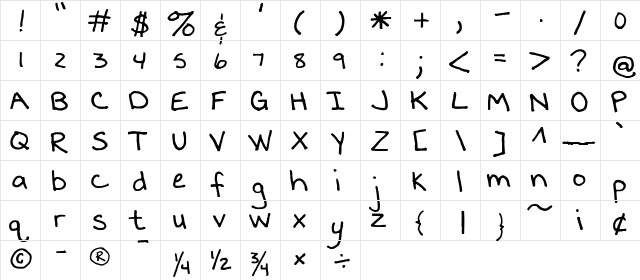
FG Kim Regular
Design Context for FG Kim Typeface
FG Kim takes a measured approach to typography — its balanced proportions and neutral character make it a reliable workhorse for both digital and print work.